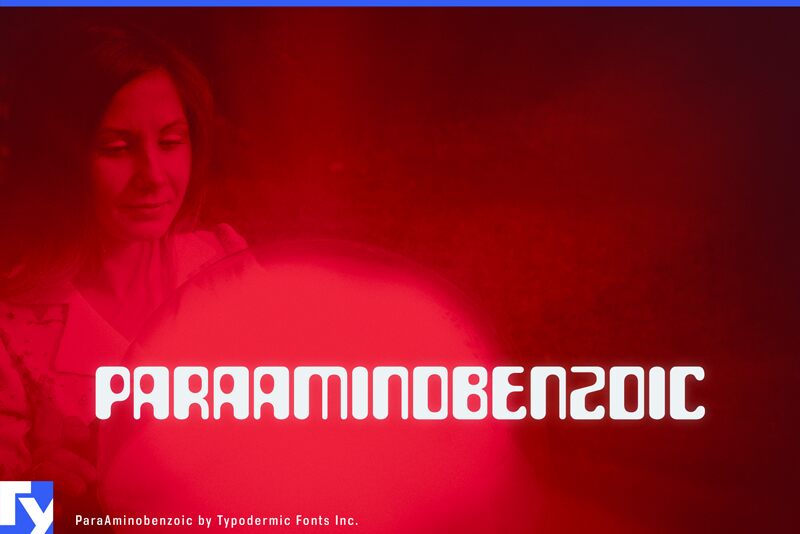
ParaAminobenzoic-Regular
ParaAminobenzoic was inspired by 1960s magnetic ink retro-tech. Its been updated with improved vertical metrics for cross-browser web performance. More languages are supported and accents have been redesigned. Spacing and kerning has been improved. More punctuation and math symbols have been added, as well as fractions and numeric ordinals.
Ray Larabie